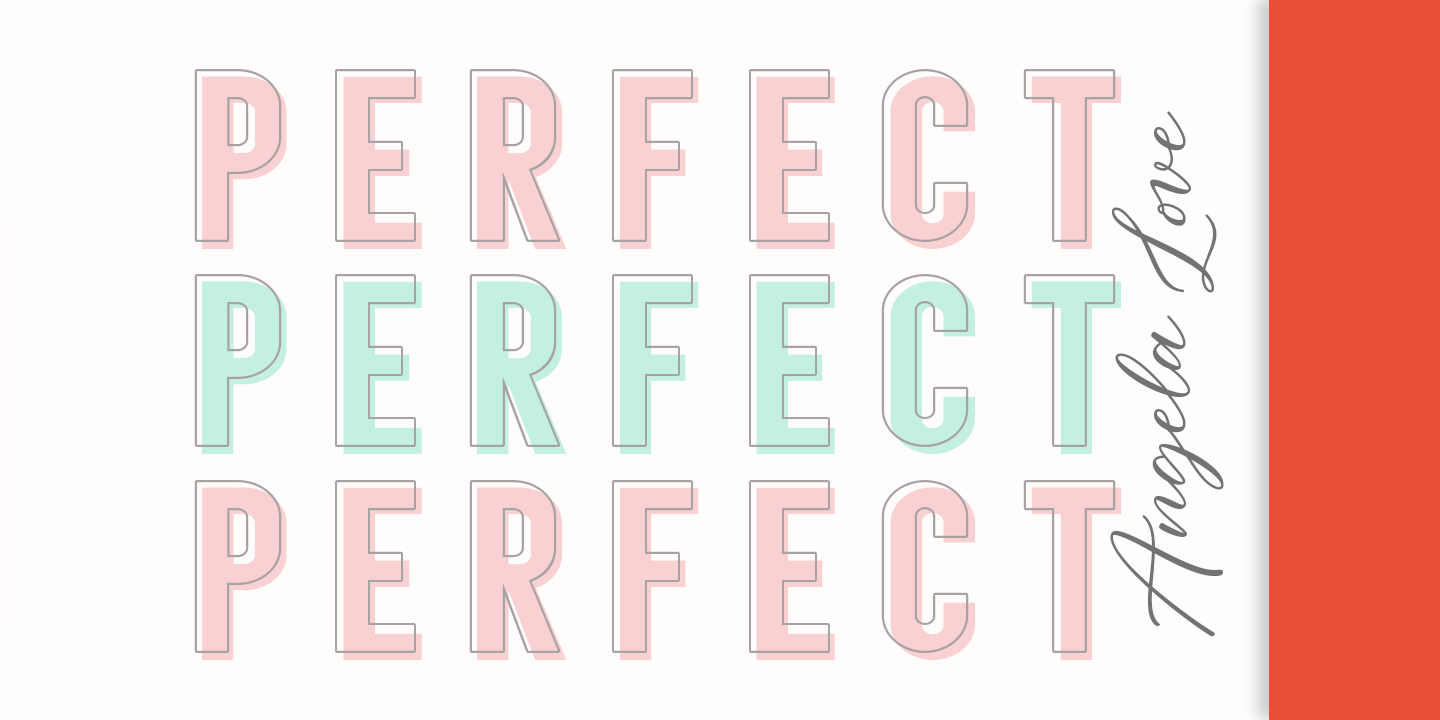
The Angela Love Sans Font Free Download is a wonderfully warm and friendly sans-serif typeface, making it an excellent choice for designs that aim to convey sincerity, approachability, and a gentle charm. This inviting font is perfectly suited for personal branding, lifestyle blogs, children's book illustrations, handmade product labels, boutique cafe menus, and social media graphics for uplifting content. Imagine it adding a comforting touch to a family-oriented website, providing a cheerful and legible feel for a local craft shop, or giving a unique, wholesome vibe to an inspirational quote graphic. Its soft, rounded forms and clear readability ensure your message is delivered with warmth and an undeniable sense of genuine appeal.
What makes Angela Love Sans Font truly exciting is its ability to instantly infuse designs with a feeling of gentle comfort and heartfelt sincerity. It's not just a basic sans-serif; it embodies an organic softness and a friendly character that makes it incredibly appealing. The slightly playful forms and smooth curves give it an authentic, approachable feel, as if lovingly crafted. Designers will appreciate how easily it brings an unpretentious, comforting touch to any project, making it ideal for designs that need to feel friendly, engaging, and visually inspiring with a touch of tender elegance.
The Angela Love Sans Font family typically offers a range of weights and styles to provide maximum flexibility for designers, allowing for various applications from headlines to body text. You can often find variations such as Light, Regular, Medium, and Bold, each providing a different level of visual impact for creating strong typographical hierarchies. Some versions might also include Italic styles, further enhancing its utility for emphasis and stylistic variation. These comprehensive options ensure that the Angela Love Sans Font Free Download empowers designers to create truly charming, comfortable, and visually captivating designs that resonate with warmth and a sense of inviting simplicity.